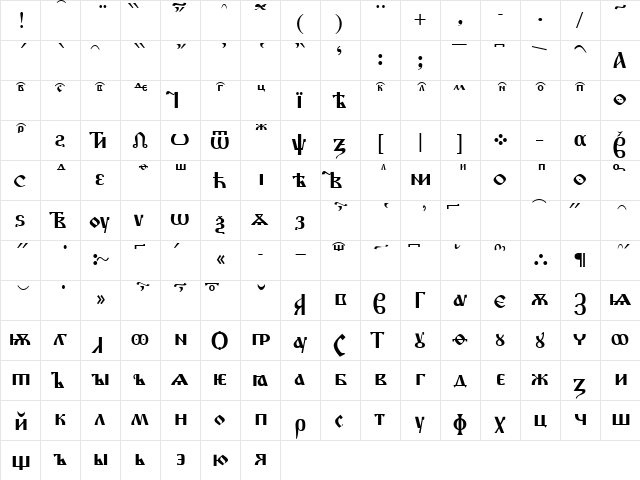
ChurchSlavonic Bold
Design Context for ChurchSlavonic Typeface
ChurchSlavonic is a composed and adaptable typeface that performs quietly and consistently across a wide range of design contexts. Its bold stroke weight gives it real presence on the page.